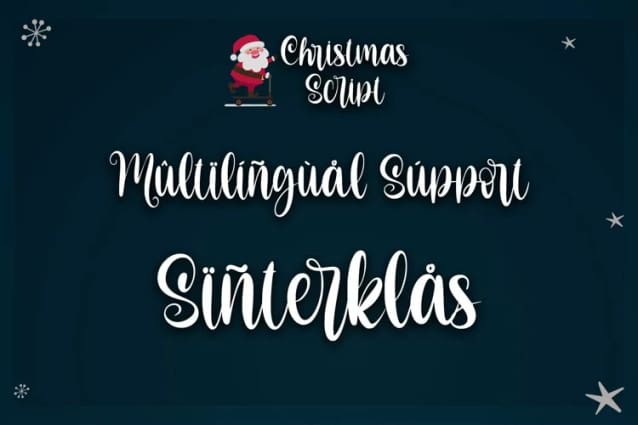
TA Christmas Script Font
TA Christmas Script Font, that is simple and unique looking. Its beautiful charm makes it appear wonderfully down-to-earth, readable and, ultimately, incredibly versatile. This will add a fun and friendly touch to any of your projects! This font is PUA encoded, which means you can easily access all glyphs and sweeps.